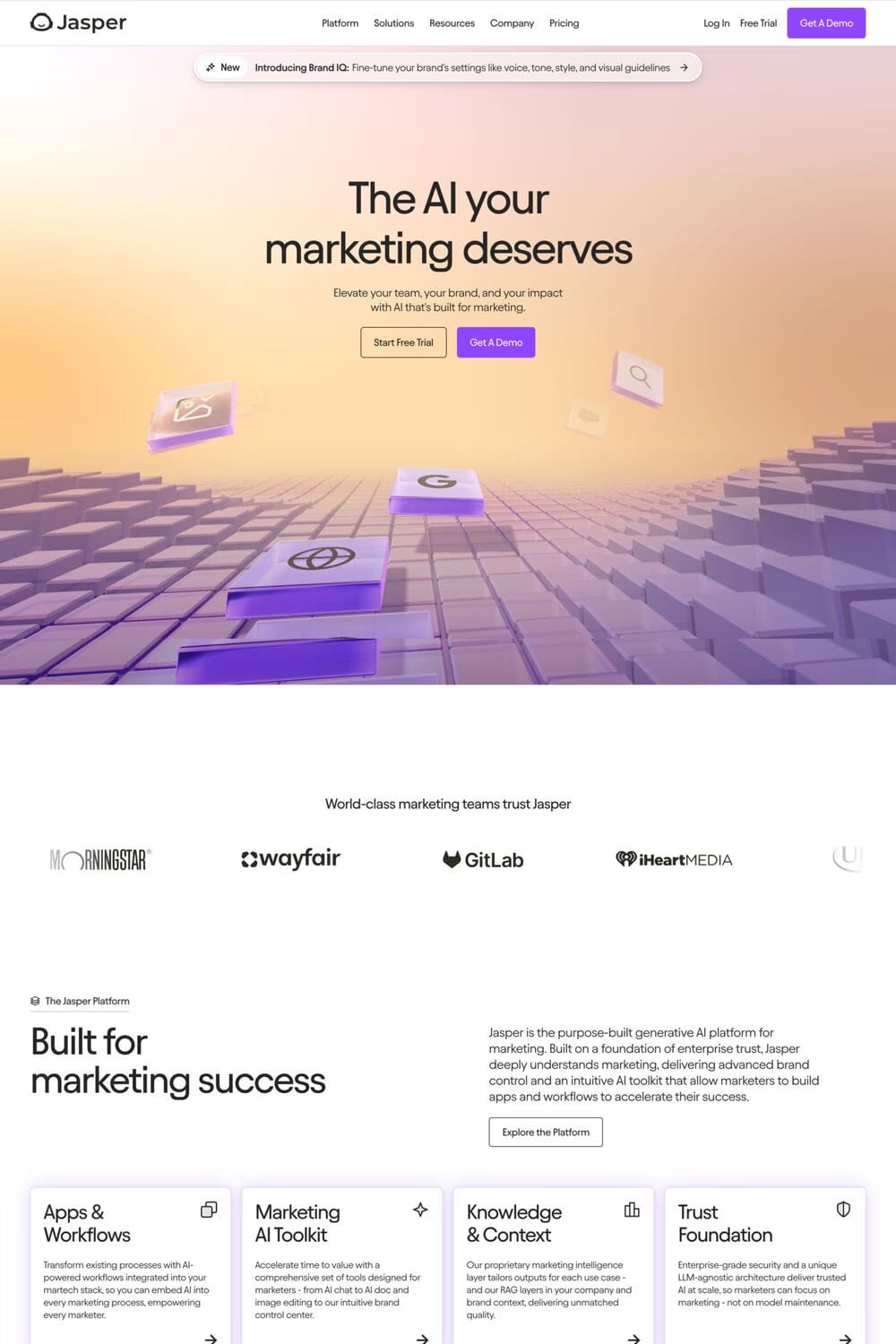
Avantt is a sans-serif typeface from Displaay Type Foundry.
Avantt was initially created as a bespoke typeface for the signage and brand at Bubenská 1, a newly reconstructed office building in Prague. Architects, Adolf Benš and Josef Kříž, designed this building in a functionalist style between 1927 and 1935. This typeface takes inspiration from architectural principles and historical sources, such as the works of Ladislav Sutnar, Adolf Loos, and the Bauhaus movement. Avantt, the new retail version, slightly differs from the bespoke original, but still has the essential character.